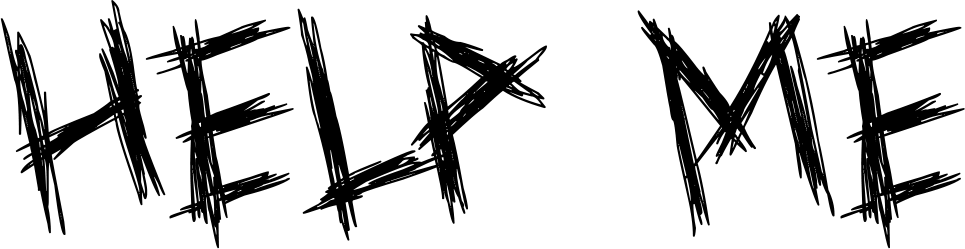
Help Me Font
There is no harm in taking a little risk and using a scratched font like Help Me. Although the font does not support lowercase letters, it looks very different and eye-grabbing thus it can be used to produce youth-friend…
There is no harm in taking a little risk and using a scratched font like Help Me. Although the font does not support lowercase letters, it looks very different and eye-grabbing thus it can be used to produce youth-friendly content such as brochures or posters for video games.
Help Me characters are like drawing lines on a stick or wall and convey a sense of dread and fear.